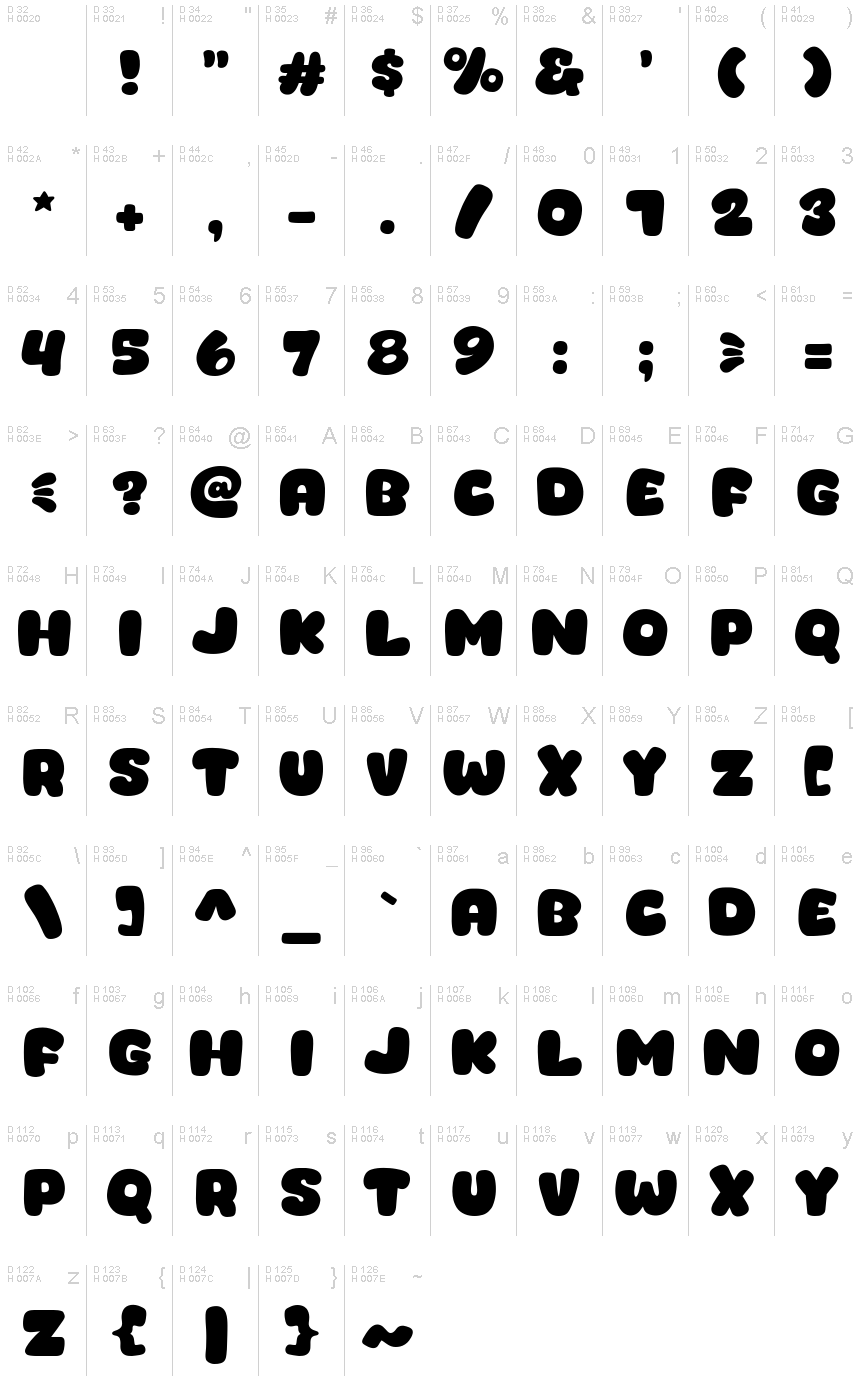
Catcut
Catcut, designed by Khurasan, is a playful and dynamic display font that radiates charm and personality. Its cartoon style infuses a sense of fun and whimsy, making it perfectly suited for projects that require a touch of lightheartedness. The bold character of Catcut ensures that text will stand out with confidence on any page or screen.
This font's cheerful demeanor makes it an ideal choice for children's books, animated movie titles, party invitations, or any design work aiming to elicit smiles and capture the imagination. With its ability to convey joy and creativity effortlessly, Catcut promises to inject life into your designs and communicate messages with a friendly and approachable tone.